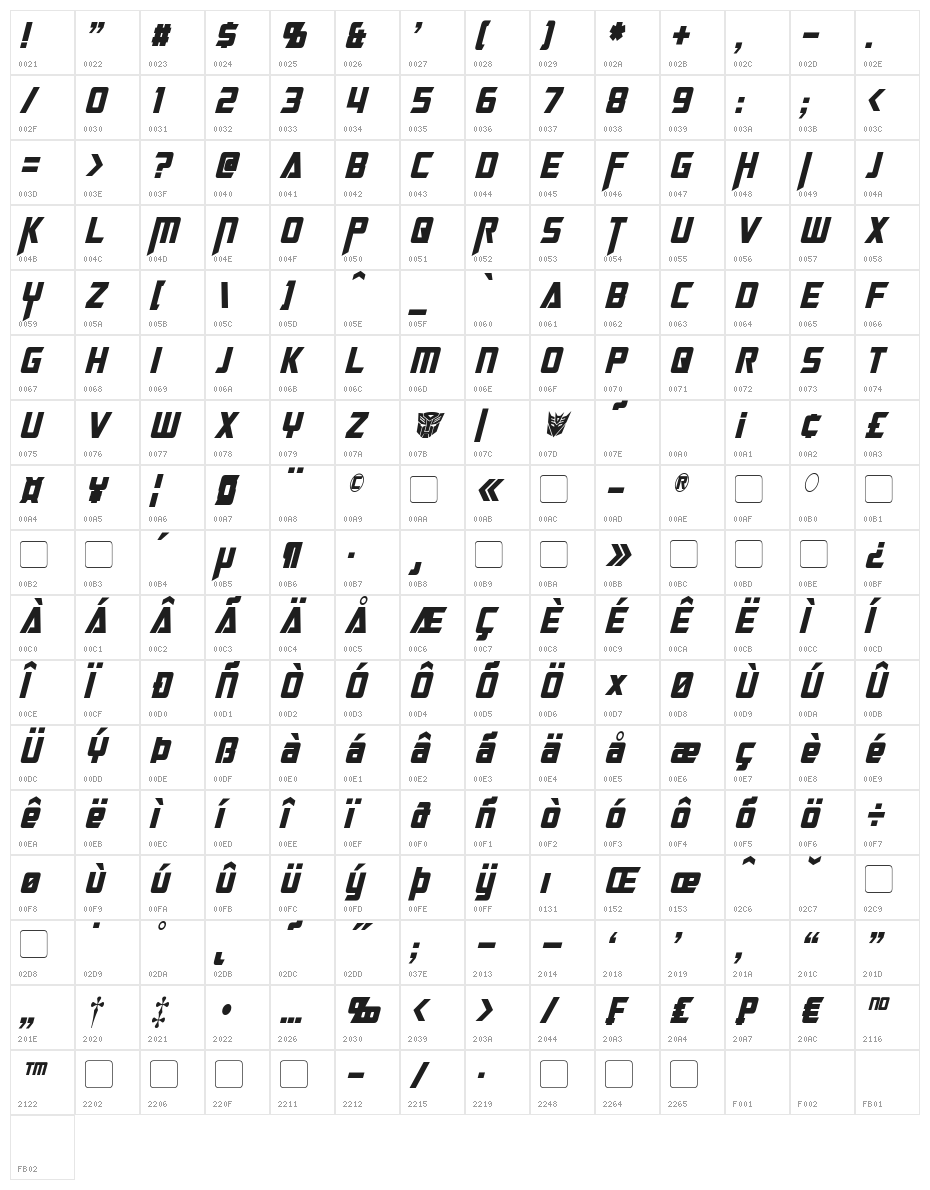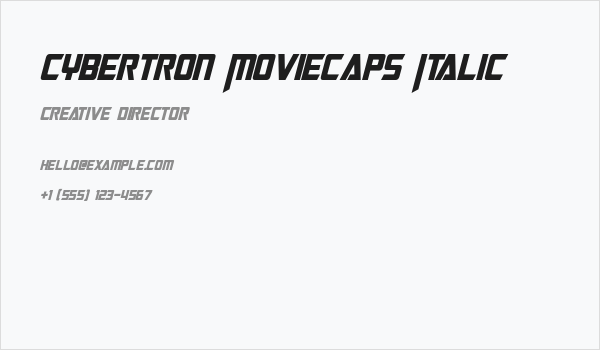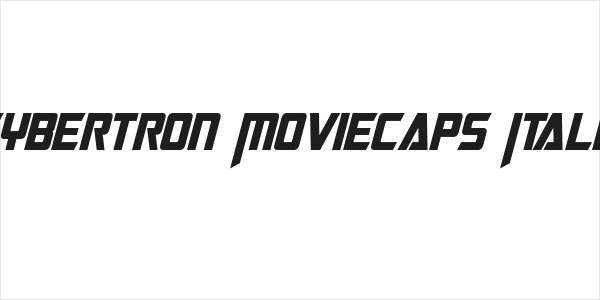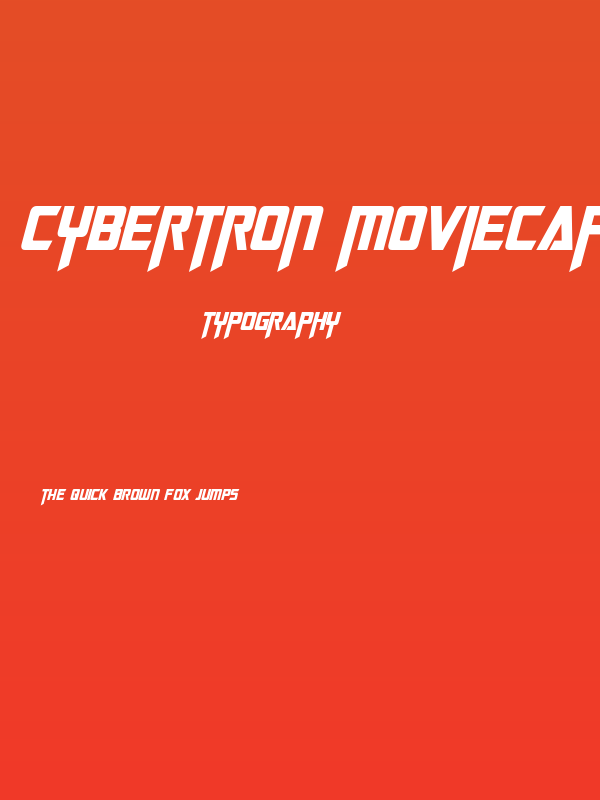
Cybertron Moviecaps Italic Font
Cybertron Moviecaps Italic Description
This font features a bold, futuristic design with sharp angles and a dynamic, italicized slant. The characters are heavily stylized, with a consistent forward-leaning posture that conveys motion and energy. The uppercase and lowercase letters maintain a uniform height, enhancing the sleek, modern appearance. The numerals and special characters are equally bold, matching the overall aesthetic. The font's geometric shapes and clean lines make it suitable for projects that require a strong, impactful visual presence.
| Proposed Projects | Ideal for sci-fi movie posters, video game titles, tech branding, and futuristic-themed designs. |